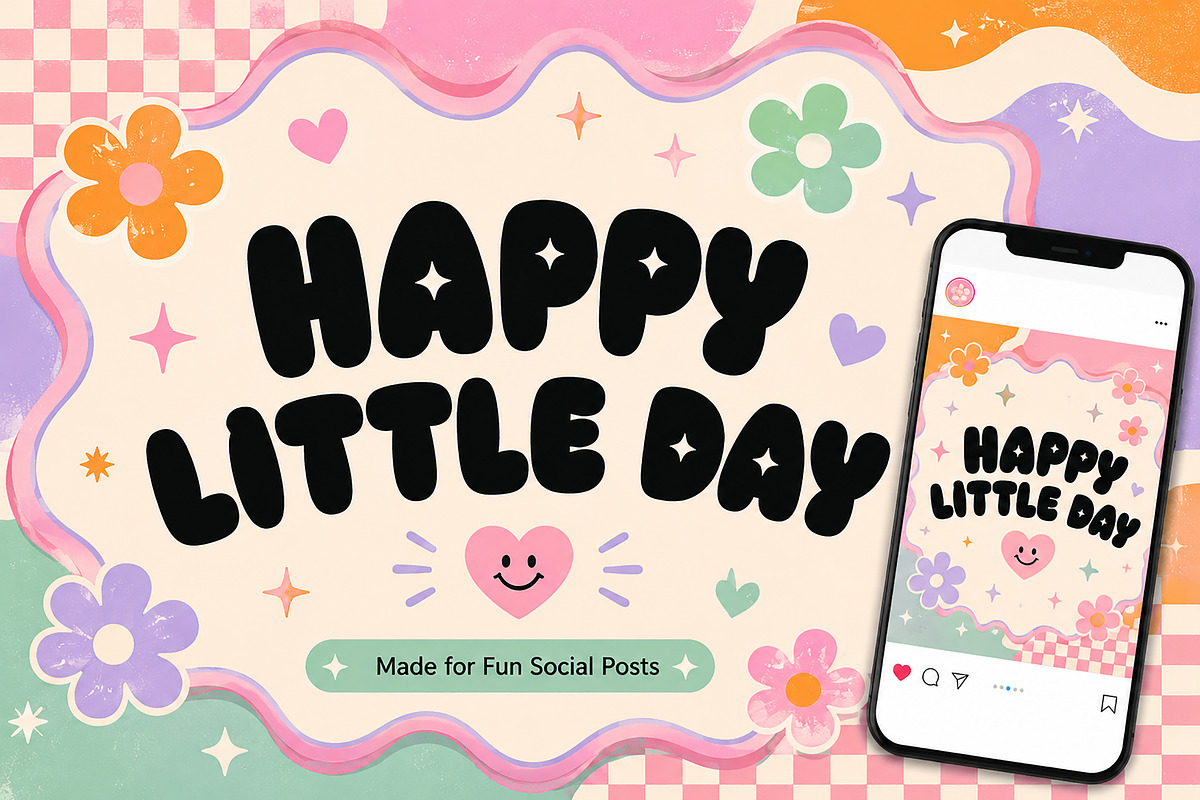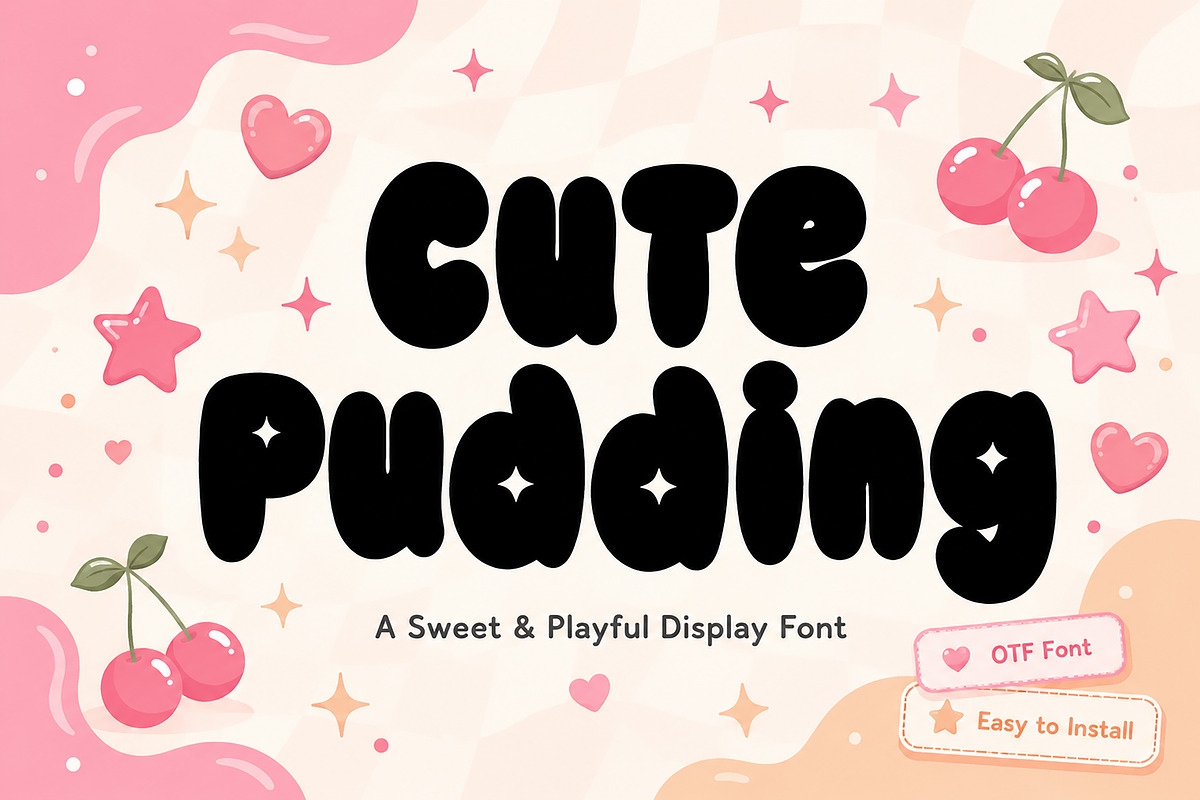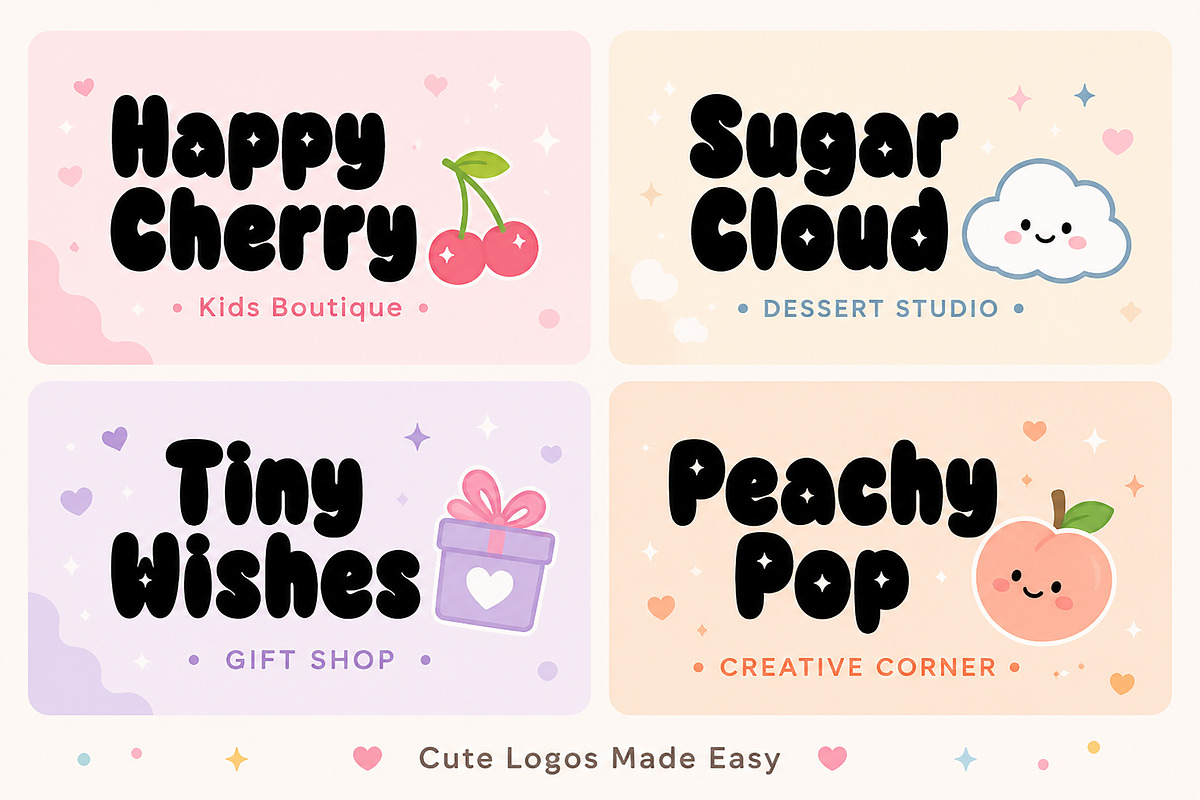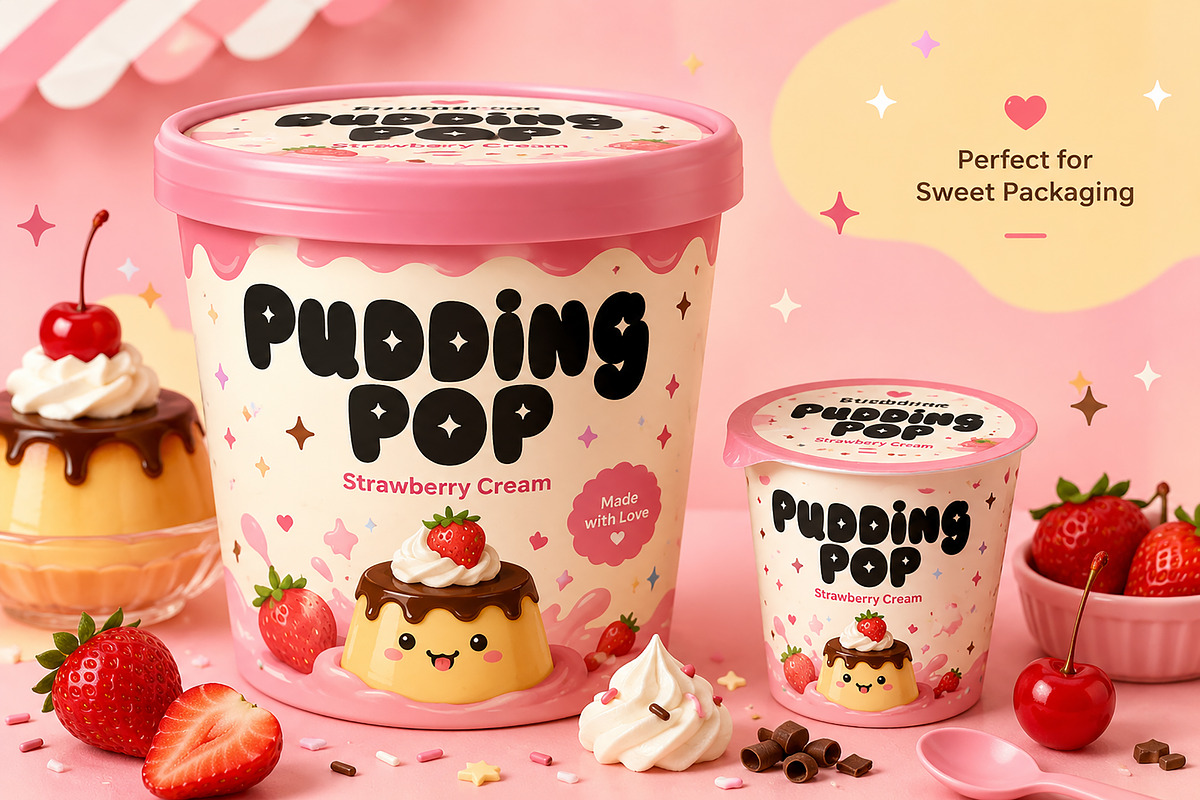
Cute Pudding
Cute Pudding — Playful Bubble Display Font
Cute Pudding is a bold, rounded, and playful display font created to bring a sweet and cheerful personality to your designs. Its chunky bubble-shaped letters and charming sparkle details make every word feel fun, friendly, and instantly eye-catching.
This font is perfect for cute branding, dessert packaging, children’s products, social media graphics, posters, stickers, merchandise, café menus, party invitations, product labels, and many other creative projects. Whether you are designing a playful logo or a colorful promotional post, Cute Pudding will help your message stand out with a warm and memorable style.
Bold and rounded bubble letterforms
Cute and playful display style
Decorative sparkle details
Easy-to-read statement typography
Suitable for large headlines and short titles
Cute logos and branding
Dessert and food packaging
Bakery and café designs
Kids’ products and clothing
Social media posts
Posters and promotional graphics
Stickers and labels
T-shirts and merchandise
Birthday and party designs
Greeting cards and invitations
Craft and printable projects
Product packaging
Bring sweetness, joy, and playful energy to your next project with Cute Pudding!